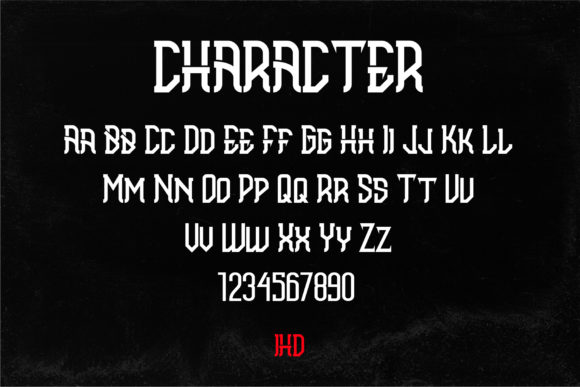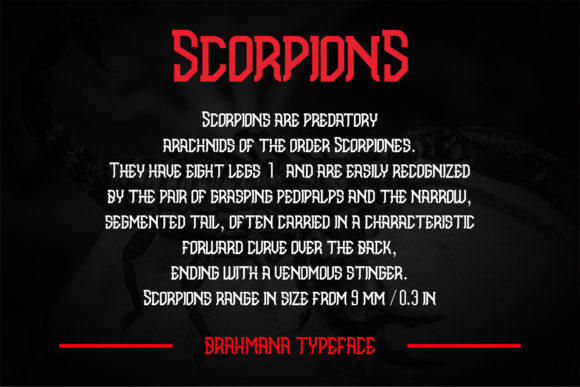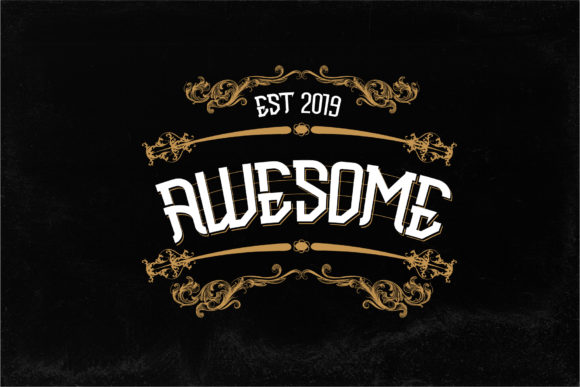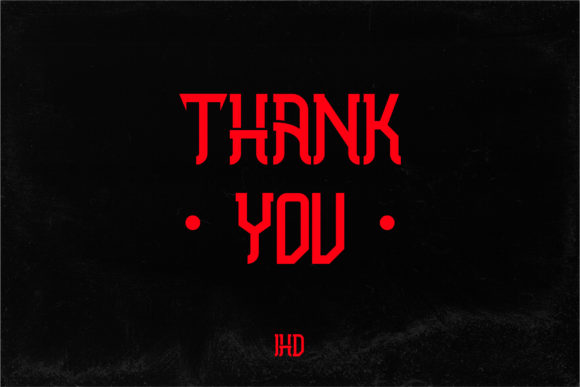
The Perfect Blend of Strength and Style: Unlocking the Power of the Brahmana Font
Have you ever stumbled upon a font that makes your message stand out from the crowd? For designers, this is a moment of pure magic – the kind that sparks inspiration and fuels creativity. It’s the moment when you know you’ve found the perfect tool to convey your vision with confidence and style.
Enter the Brahmana Font, a powerful and strong gothic-themed display font that’s designed to deliver any message with unapologetic flair. This versatile font is perfect for designers who want to add an air of sophistication and elegance to their work. Whether you’re working on a branding project, a poster, or a social media campaign, the Brahmana Font is sure to make your design shine.
Brahmana Font Key Features
- Font Family: Brahmana, Brahmana Sans, Brahmana Serif, Brahmana Script, and Brahmana Display
- Character Set: Latin, Devanagari, and other regional languages
- Unique Characteristics: The Brahmana font is designed with a unique blend of traditional and modern elements, featuring a clean and elegant look with a strong emphasis on legibility.
Brahmana Font Review
As a designer, I had the chance to work with the Brahmana font, and I must say it has some unique characteristics that make it stand out. ✨ Here are some of the things that worked well for me:
- Unique aesthetic: The Brahmana font has a distinct, hand-drawn feel that adds a touch of personality to any design.
- Good legibility: The font is well-suited for body text and is easy to read, even at smaller font sizes.
- Wide language support: The Brahmana font supports a wide range of languages, making it a great choice for multilingual designs.
- Limited expressiveness: While the font has a unique aesthetic, it may not be expressive enough for certain designs, such as those that require a lot of emphasis or contrast.
- Not ideal for titles: The font’s relatively low contrast and subtle flair make it less suitable for titles or headlines, where a bolder font is often preferred.
Overall, the Brahmana font is a solid choice for designers looking for a unique, legible font with good language support. However, it may not be the best fit for every design project.
Tips for Getting the Most Out of Brahmana Font
Use the Brahmana font for titles, headings, and emphasis. It’s a elegant and sophisticated font that works well in both digital and print designs.
Experiment with different font sizes and colors to create visual interest and hierarchy in your design.
The Brahmana font is commonly used in:
- Magazine and book covers
Alternatives to Brahmana Font
Playfair Display is a luxurious, elegant serif font that is ideal for use in titles, headings, and other prominent text. It has a similar classic feel to Brahmana Font but with more refined lines and a touch of sophistication. Use it for high-end designs, luxury brands, or special occasions.
Comparison: While Brahmana Font has a more vintage feel, Playfair Display is more refined and modern. Brahmana Font is better suited for rustic or vintage-themed designs, whereas Playfair Display excels in elegant and luxurious settings.
Great Vibes is a beautiful, elegant script font that is perfect for use in titles, headings, and other text where a touch of personality is needed. It has a similar flowing feel to Brahmana Font but with a more modern and stylish twist. Use it for creative designs, fashion brands, or any project where a unique touch is required.
Comparison: While Brahmana Font has a more rustic feel, Great Vibes is more refined and elegant. Brahmana Font is better suited for vintage or rustic-themed designs, whereas Great Vibes excels in creative and modern settings.